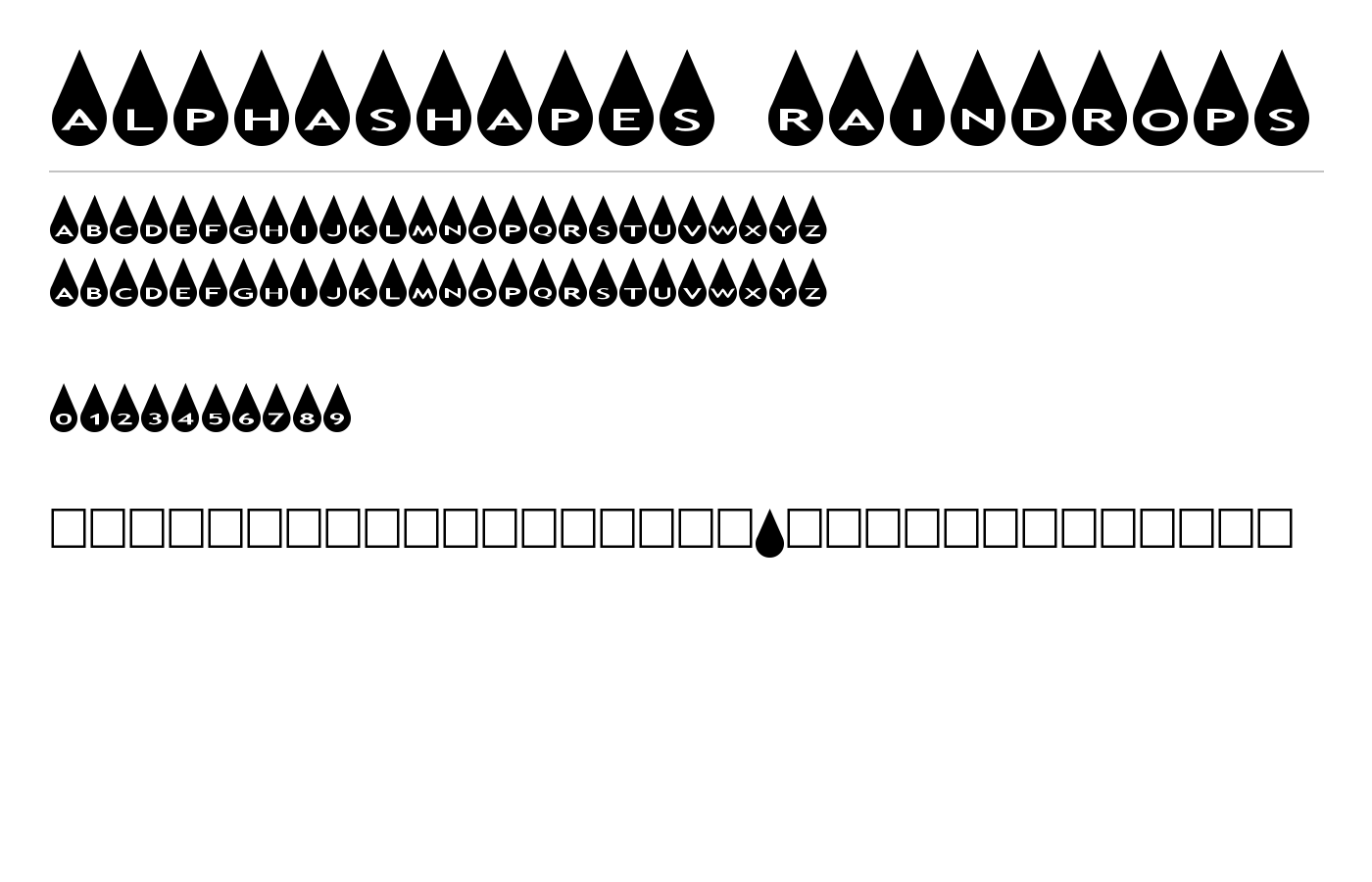
AlphaShapes Raindrops is a playful, decorative sans serif font with uppercase letters enclosed within bold, black raindrop shapes. The font offers a fun and unique visual style that works well for eye-catching headlines, logos, and packaging where a whimsical or thematic design is desired. Its distinct raindrop motif adds personality, making it ideal for creative projects related to weather, nature, or children’s products.
AlphaShapes raindrops Font